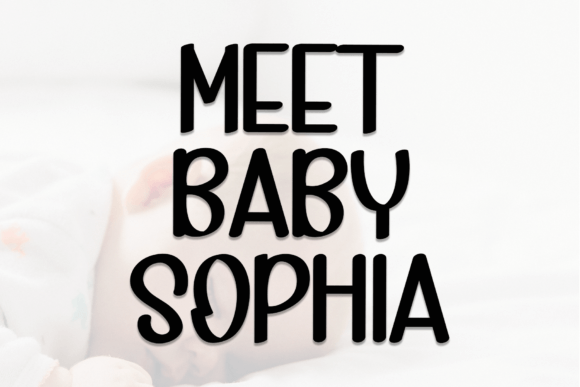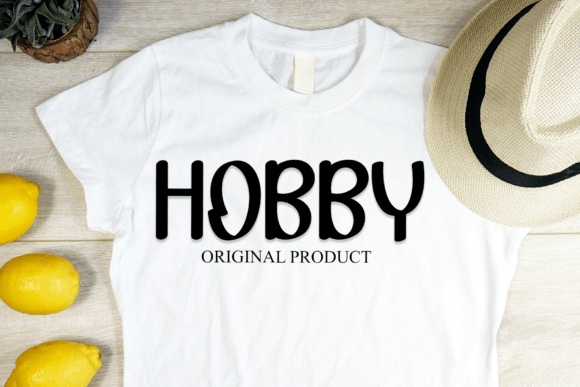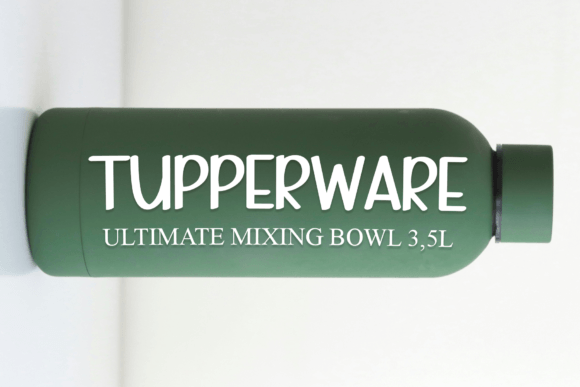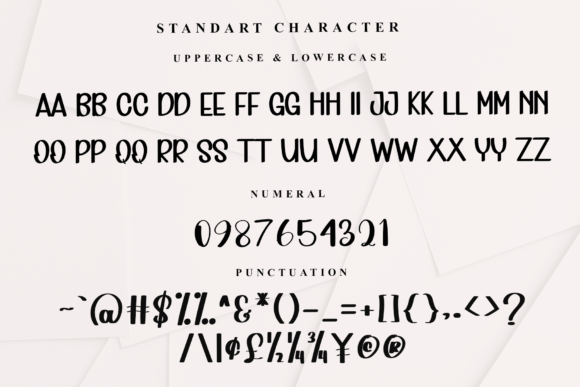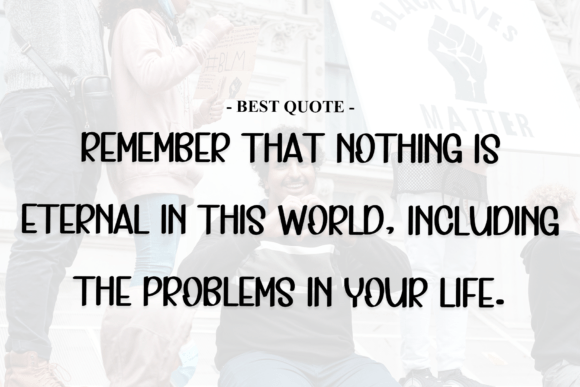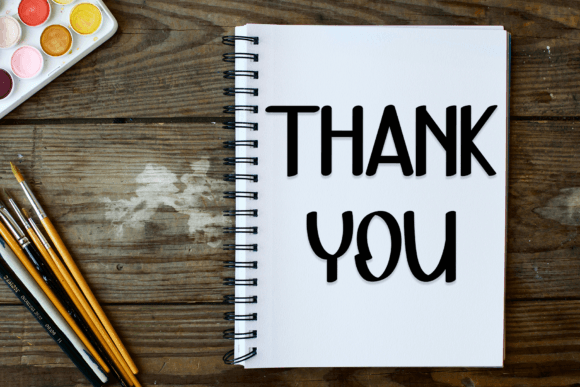
Introduction to My Candy Font
Do you remember the excitement of decorating your room for the holidays as a child? The twinkling lights, the festive colors, and the joy of creating something special with your family? For many of us, the holiday season is a time for creativity and self-expression, and what better way to capture that spirit than with a beautiful, high-quality font?
That’s where My Candy Font comes in – a festive and happy typeface that’s sure to add a touch of charm to your designs. Whether you’re working on a holiday-themed project or simply want to add some cheer to your everyday designs, this font is a valuable resource for any designer. With its decorative elements and unique flair, My Candy Font is the perfect choice for greeting cards, gift labels, and other creative projects.
Key Features of My Candy Font
• High-quality design resource for creative projects, ideal for digital artwork and print materials.
• Transparent background for easy layering and compositing in graphic design applications.
• Resolution-independent design, ensuring crisp and clear display on high-resolution screens and print materials.
• Unique characteristics include rounded edges and playful flourishes, adding a touch of whimsy to your creative projects.
• Perfect for designers, artists, and writers seeking a fun and engaging font for their next design project.
Honest Review: My Candy Font
I recently stumbled upon My Candy Font, and I must say it’s a fantastic addition to my design resource collection. As a designer, I’m always on the lookout for high-quality fonts that can elevate my creative projects. My Candy Font did not disappoint!
• ✨ The font’s transparent background makes it incredibly versatile and easy to use.
• ✨ The unique design is perfect for adding a touch of whimsy to my projects.
• ⚠️ The font may not be suitable for all types of projects, as it’s quite playful and may not be ideal for more formal designs.
• ⚠️ The font’s bold and colorful nature may be overwhelming in some compositions.
Overall, I’m impressed with My Candy Font. It’s a high-quality design resource that’s perfect for designers who want to add a little fun to their creative projects. While it may have some limitations, I believe it’s a great addition to any design library.
Tips for Getting the Most Out of My Candy Font
To get the most out of My Candy Font, use it in conjunction with other high-quality design resources. Experiment with different font sizes, colors, and styles to create a unique and eye-catching design. My Candy Font is a great addition to any creative project, and its free download makes it an accessible design resource for designers of all levels.
My Candy Font is commonly used in design projects such as logos, brochures, and social media graphics. Its unique design and transparent background make it a great choice for designers who want to create eye-catching and engaging visuals. Whether you’re working on a personal project or a professional design, My Candy Font is a great addition to your design resource library.
Q: Can I customize My Candy Font to fit my specific design needs?
Yes, My Candy Font is a highly customizable font that can be modified to fit your specific design needs. With its transparent background and intricate details, this font can be easily edited and manipulated to create unique and eye-catching designs. However, please note that any customizations should be done in a way that respects the original design intent of the font.